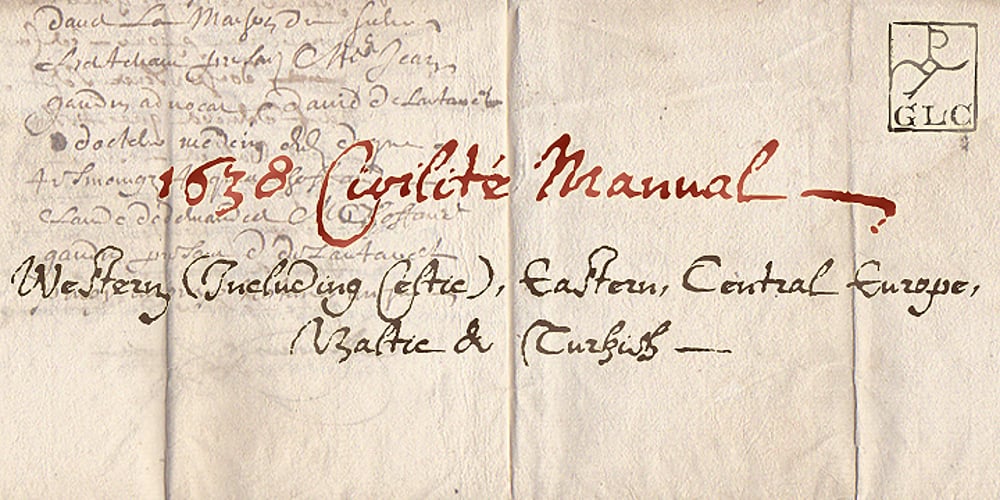
1638 Civilite Manual Font Family was designed by published by GLC. 1638 Civilite Manual contains 1 styles and family package options. This font was inspired by a French solicitor’s document dated 1638, written in the special style so named “Civilité”. We have worked to transform the almost illegible original form into a contemporary usable typeface, but keeping the time appearance. It contains Western (including Celtic) and Northern European, Icelandic, Baltic, Eastern, Central European and Turkish diacritics. The numerous alternates and ligatures made the font looking like a real various hand.